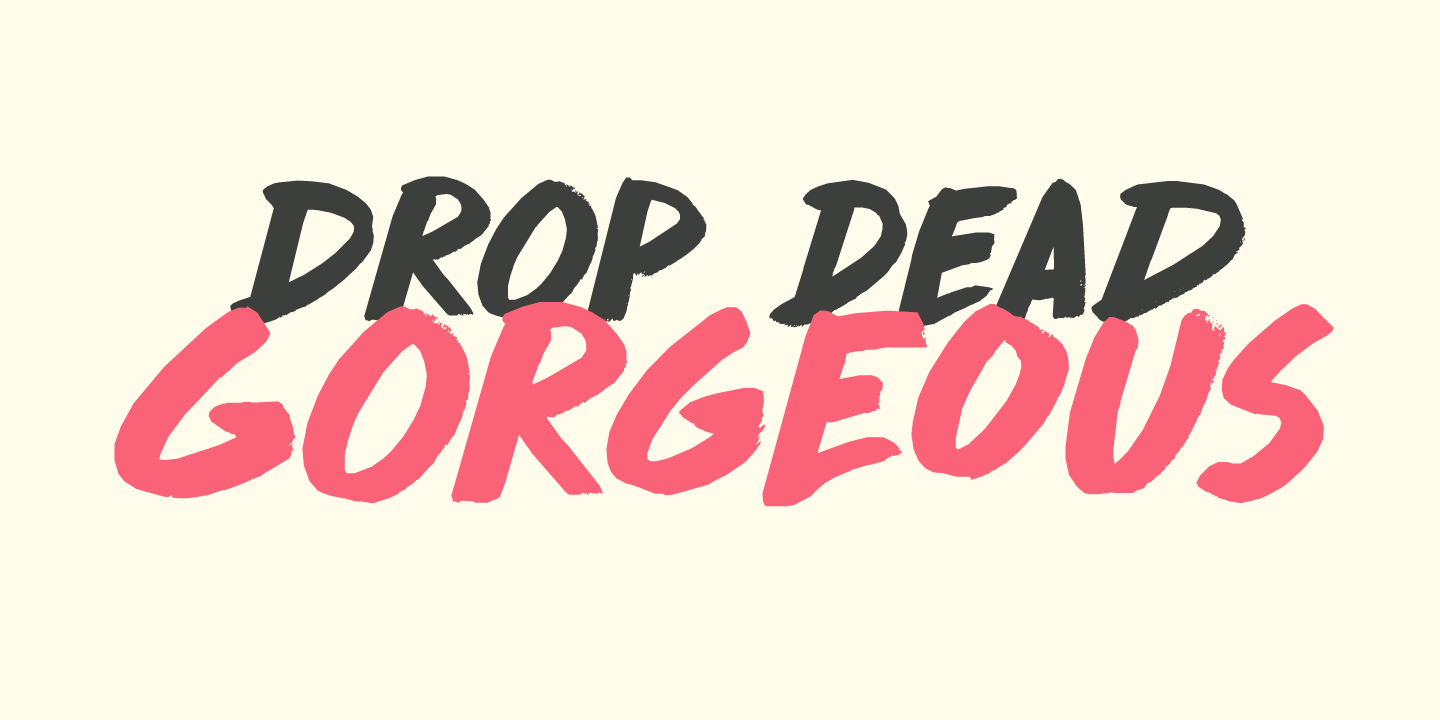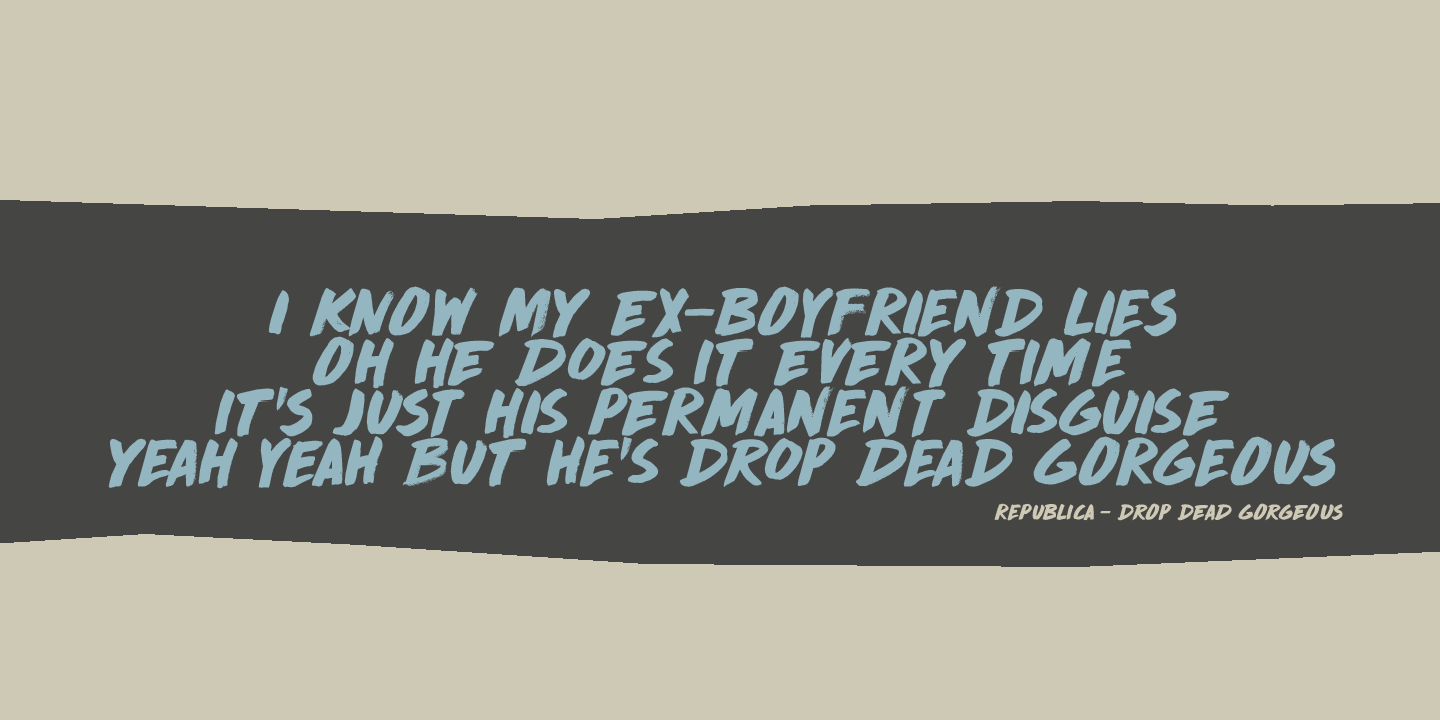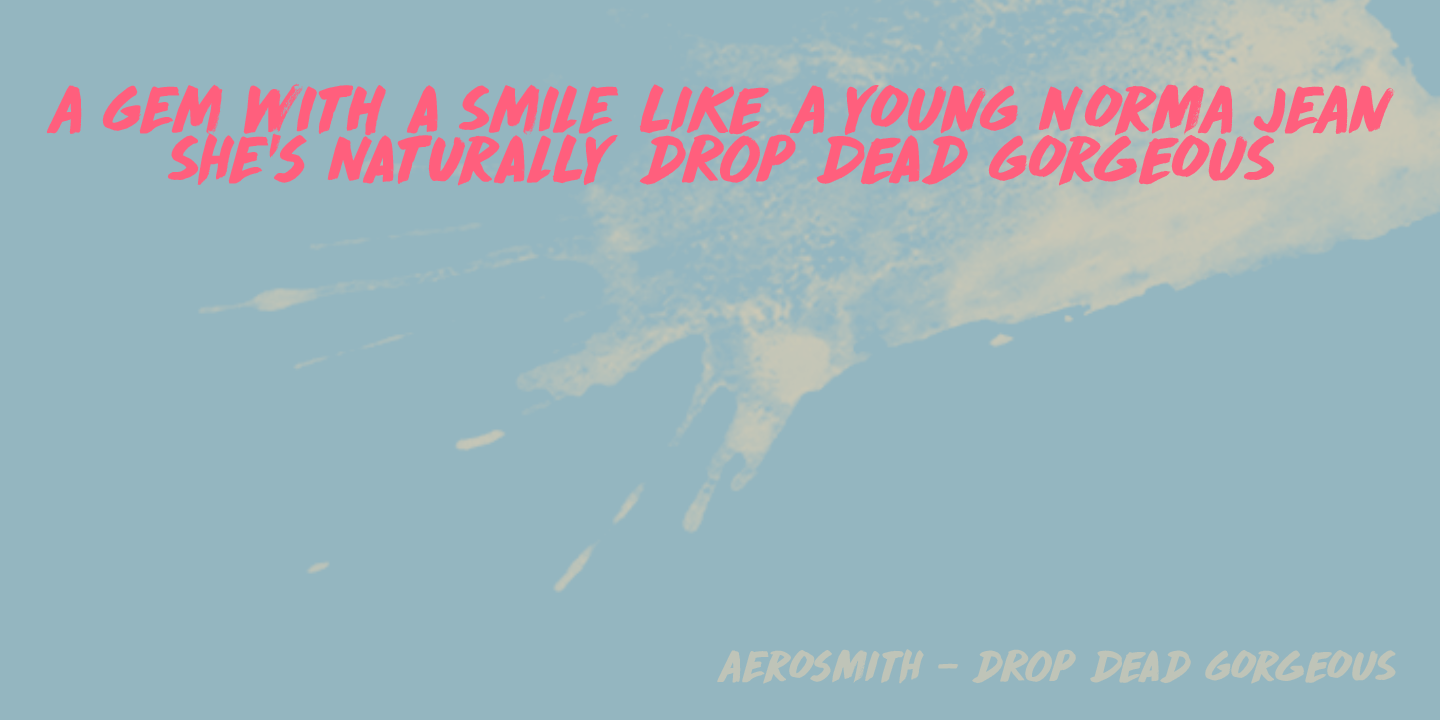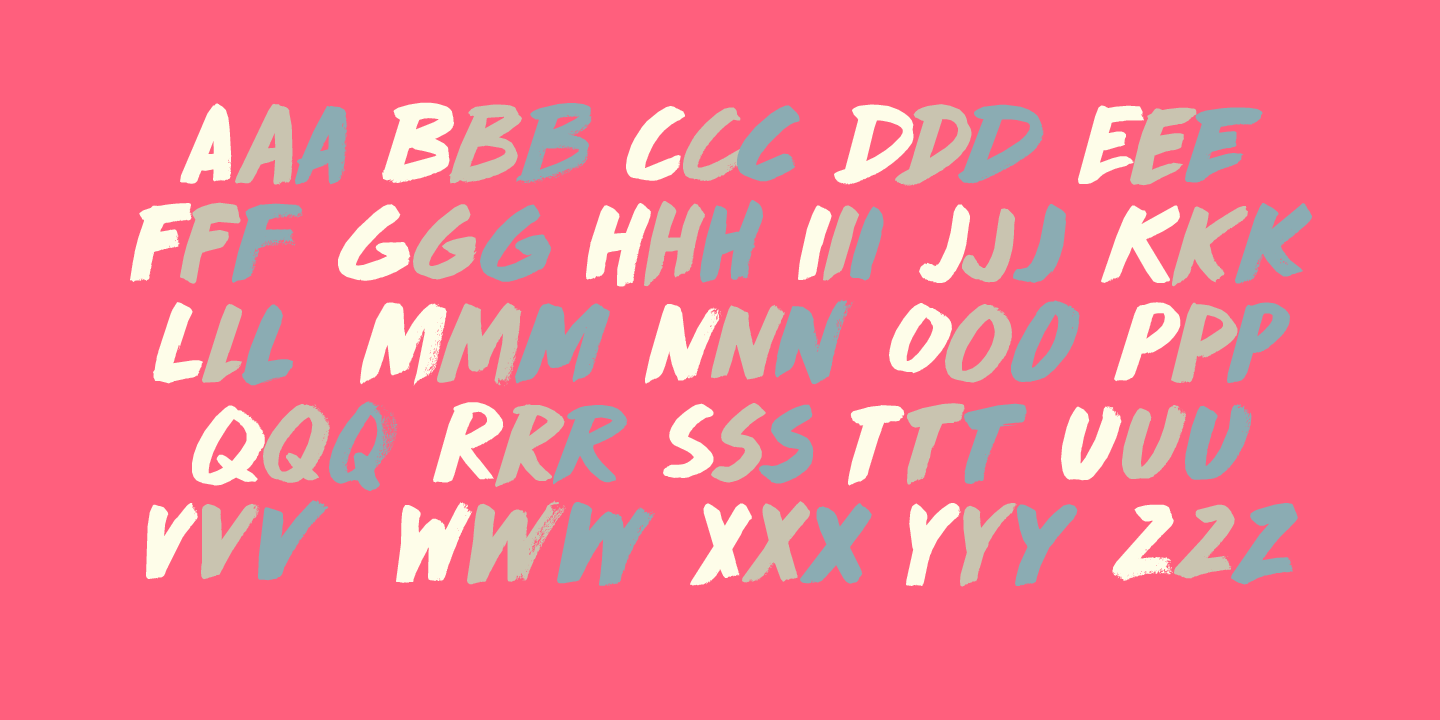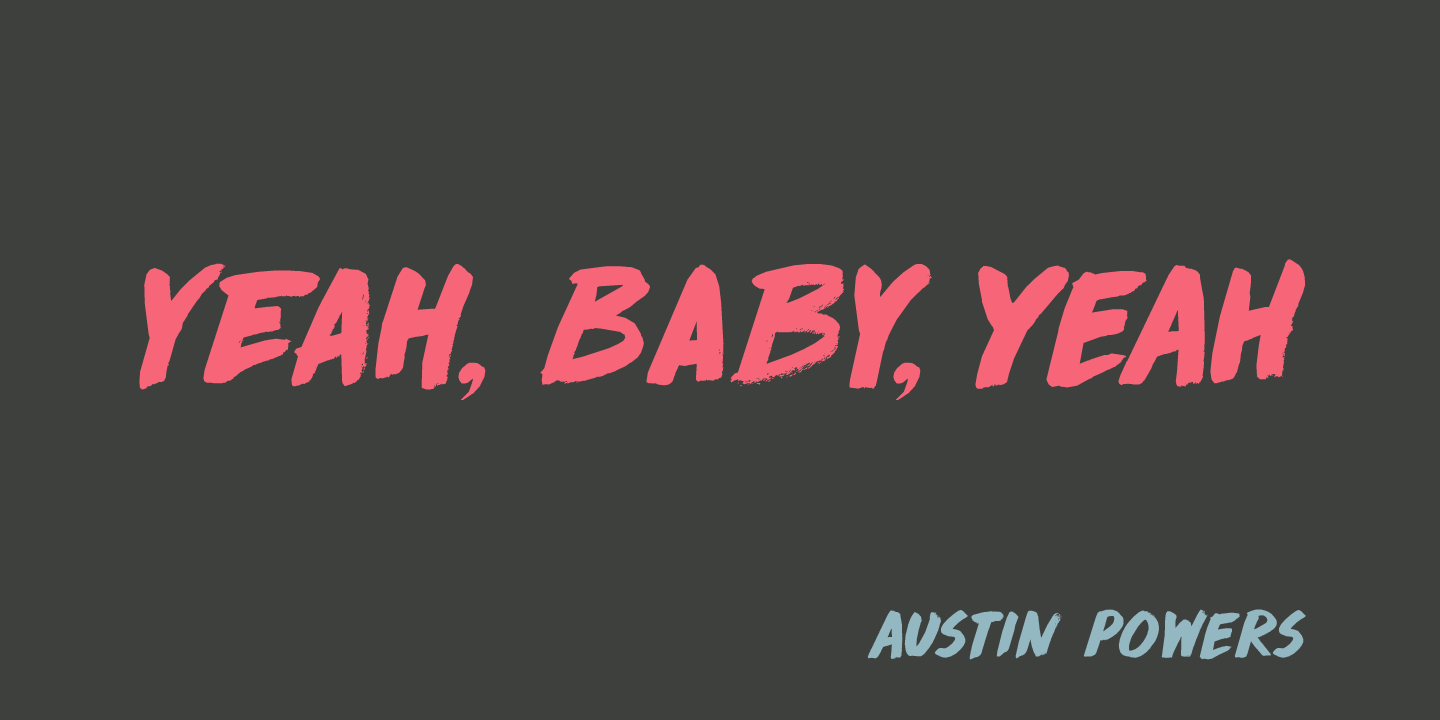
Drop Dead Gorgeous
Drop Dead Gorgeous is a slightly slanted all caps Brush font. I made it with the last of my Chinese ink (I ordered a new batch, it should arrive tomorrow). Drop Dead Gorgeous is a very legible font, ideal for headlines, posters and book covers. Comes with alternates for lower case letters and a truly breathtaking amount of diacritics.